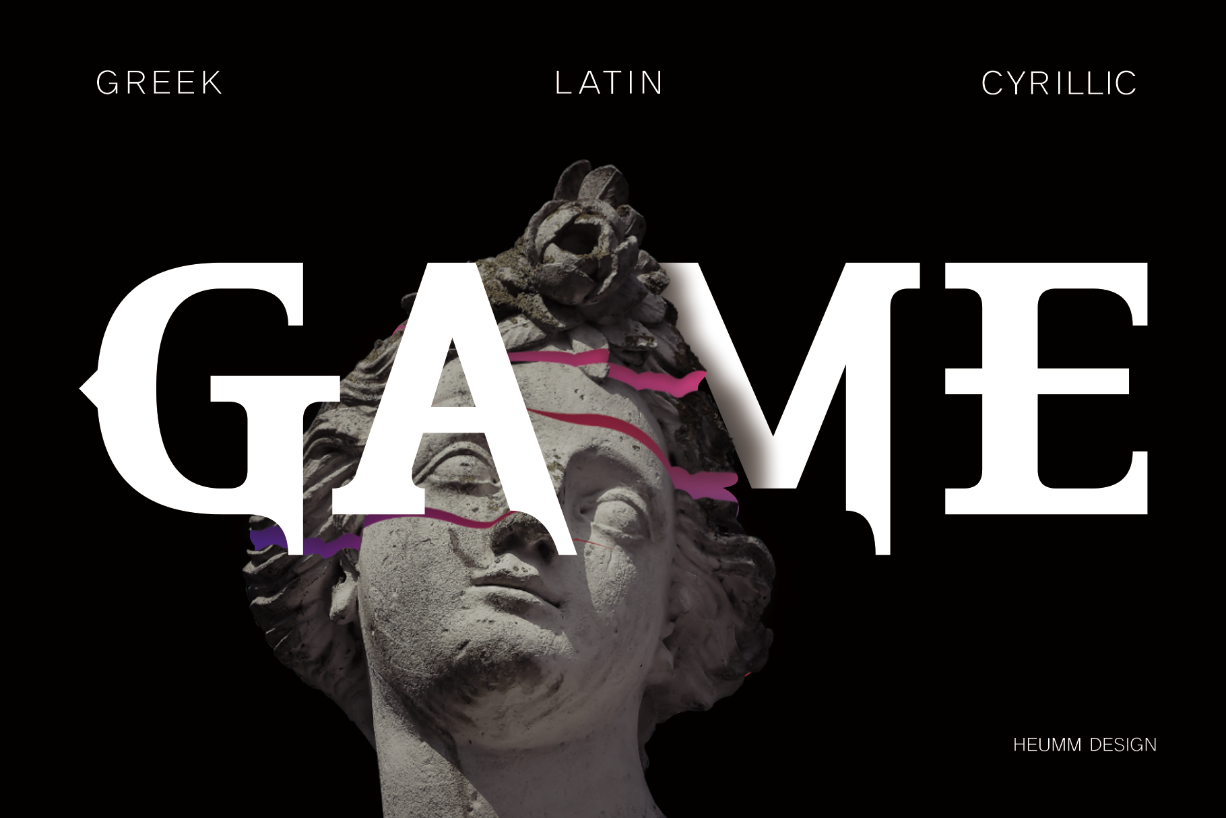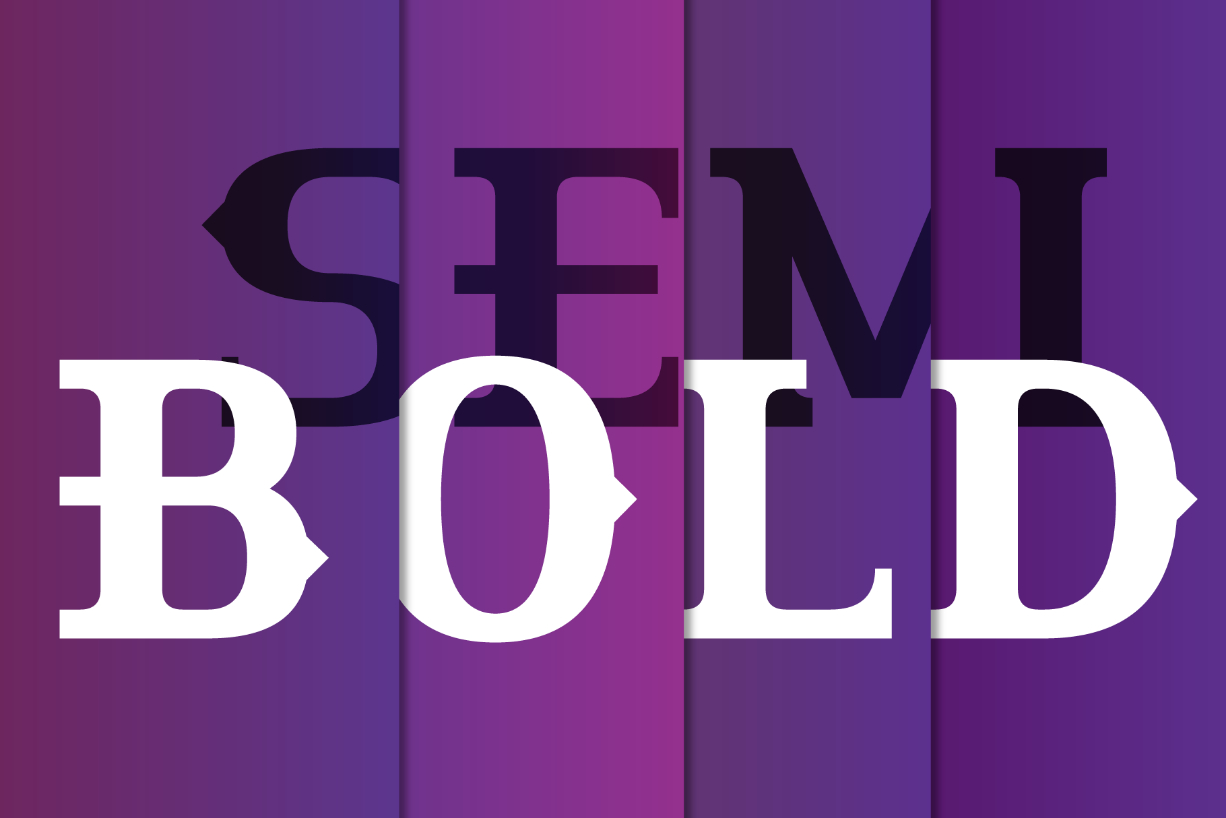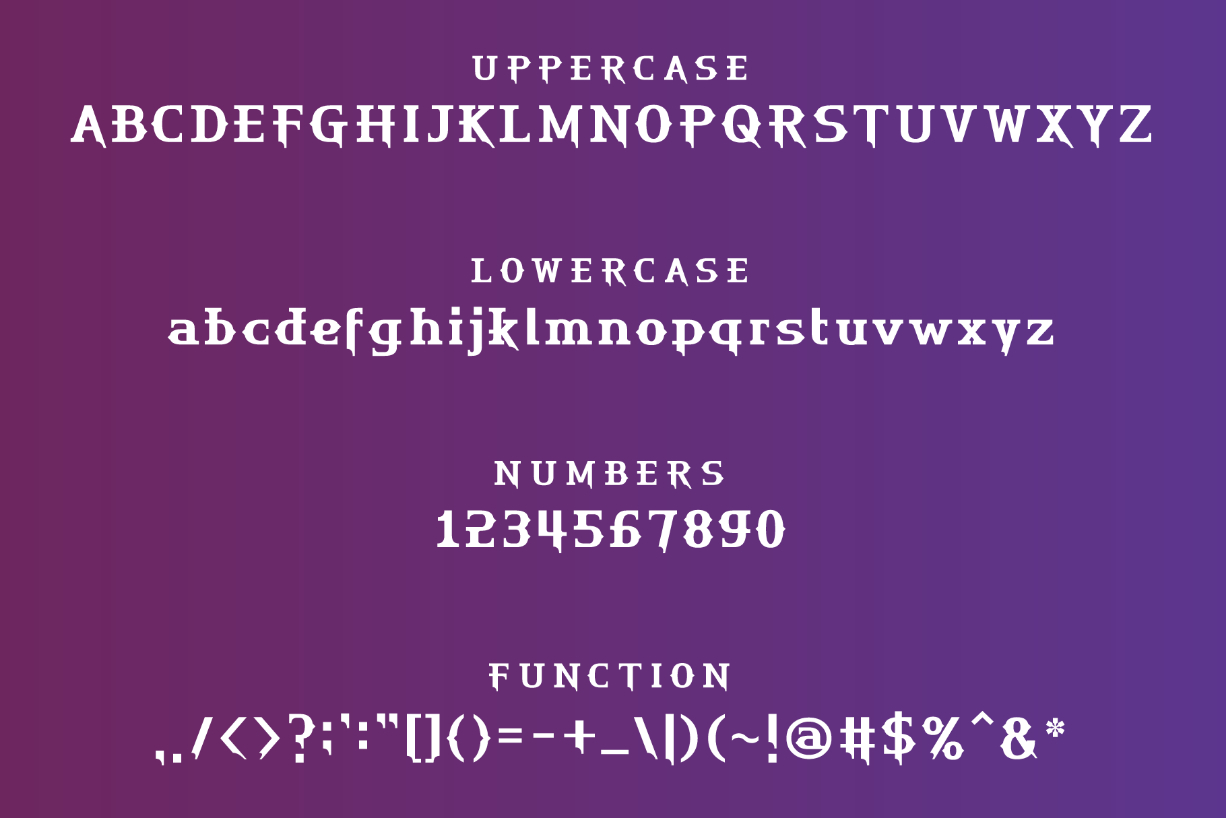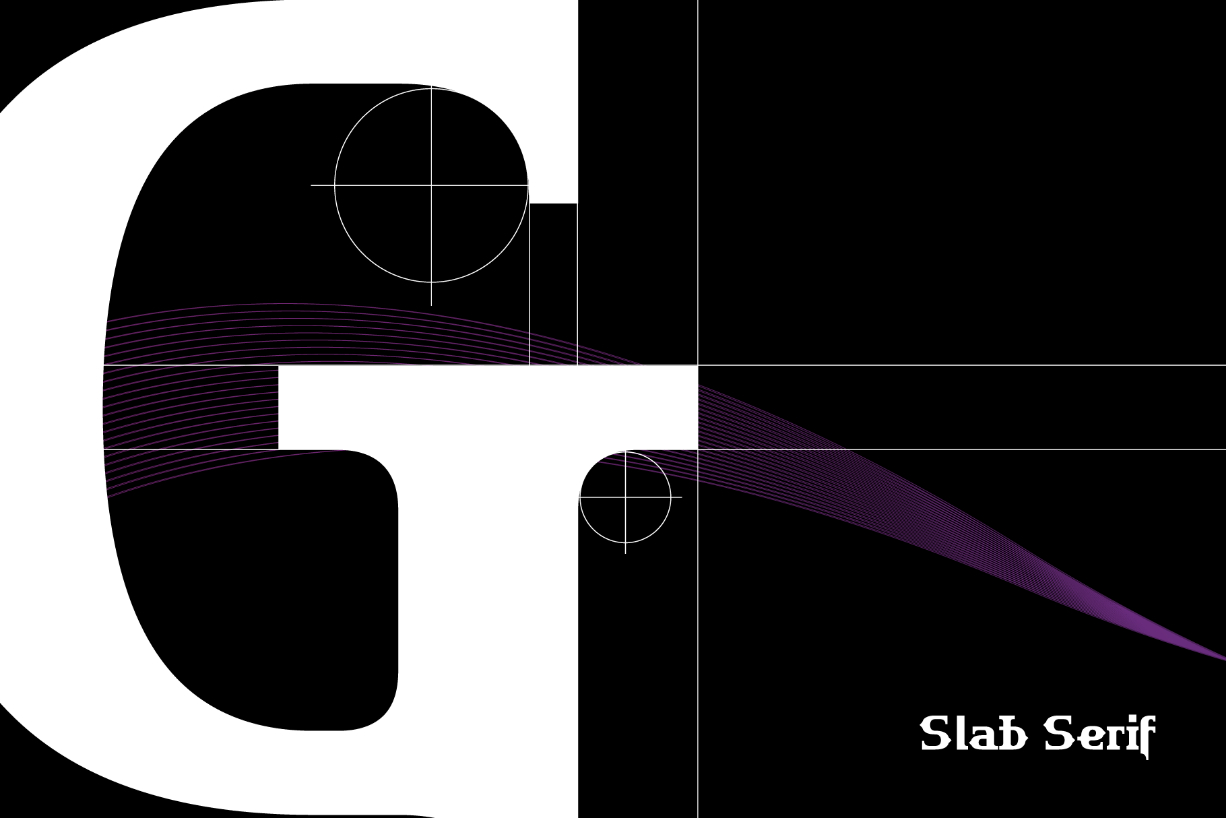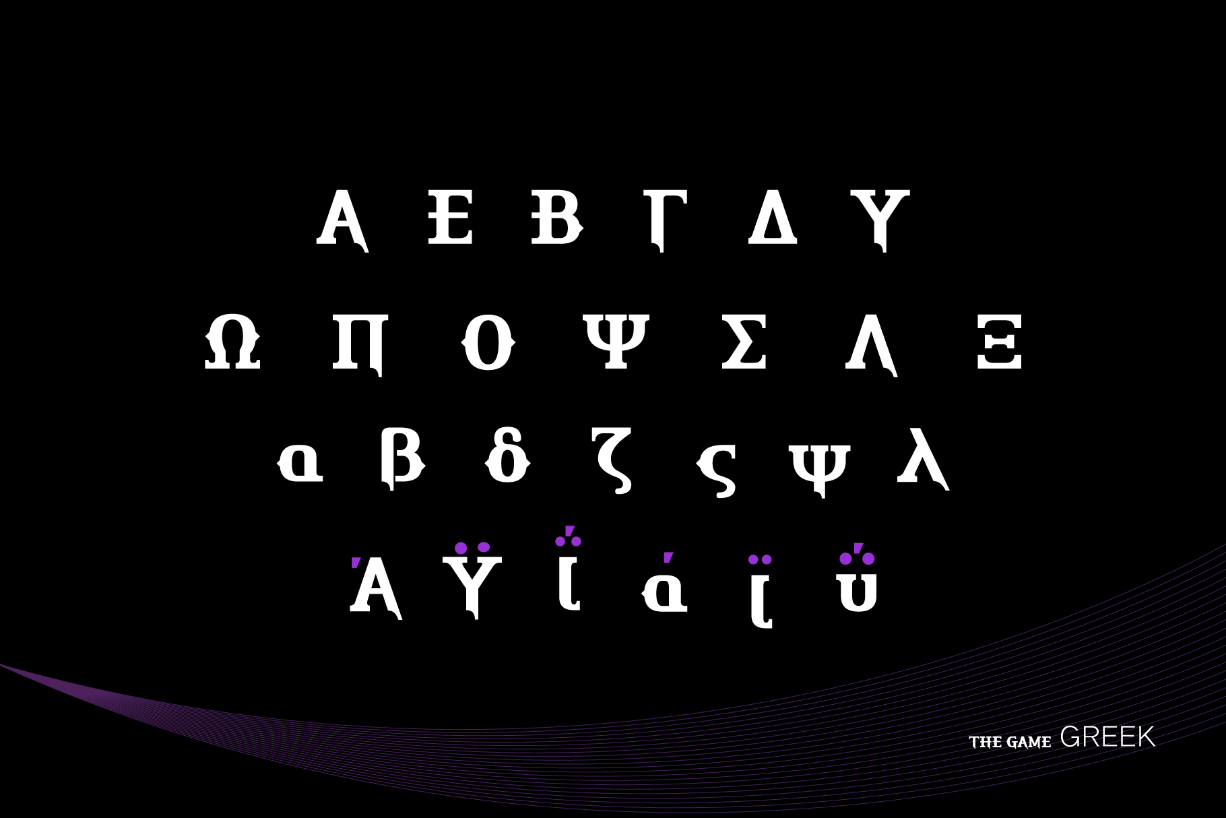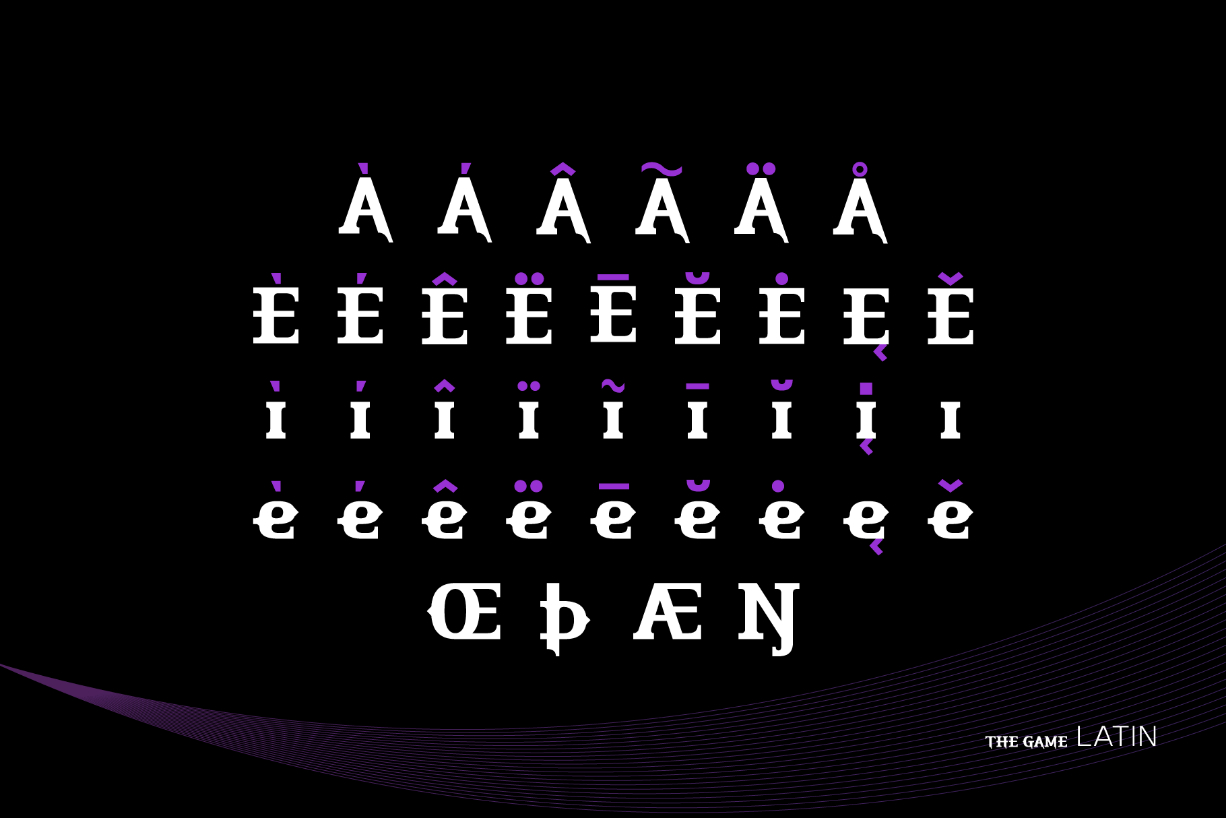
About Hu Thegame Font
HU Thegame is a blackletter typeface appropriate for titles or headlines that need to be stressed out.
It has motifs from cruel games and reflects scary impressions. The stroke edges are sharp, which makes you think of the Black Letter of Middle Age. It goes especially well with festivals like Halloween, paired with appropriate images for the event.